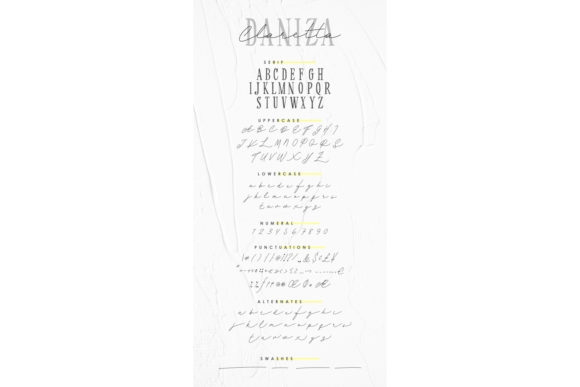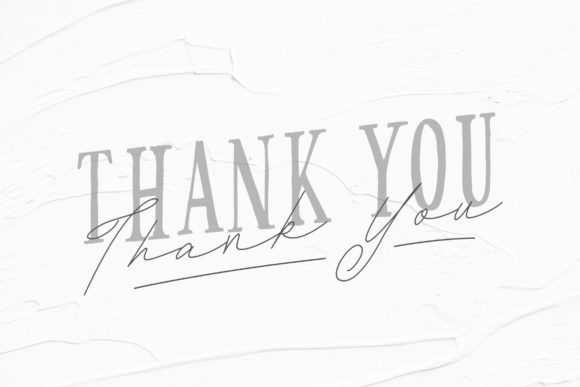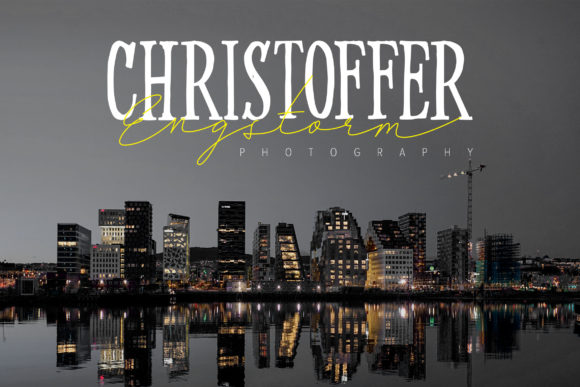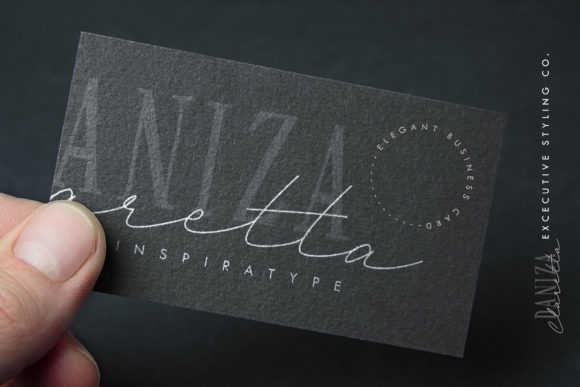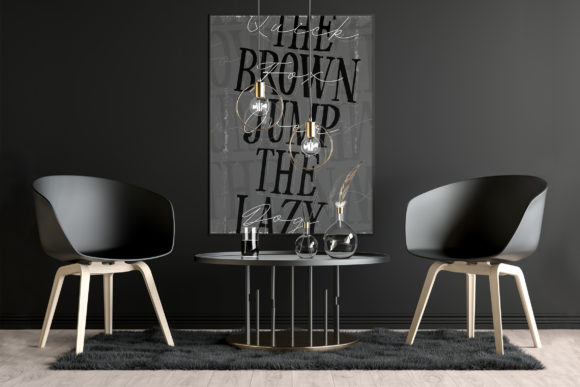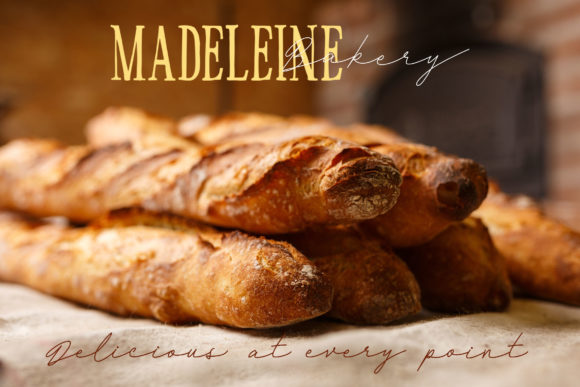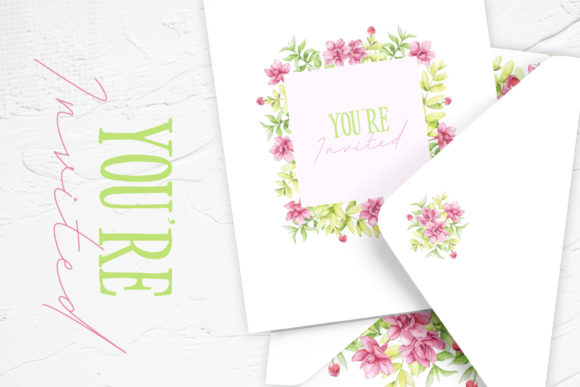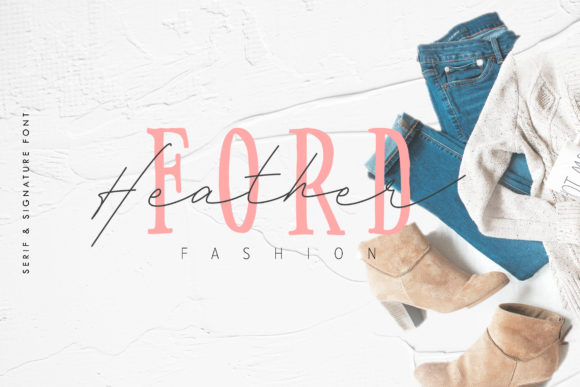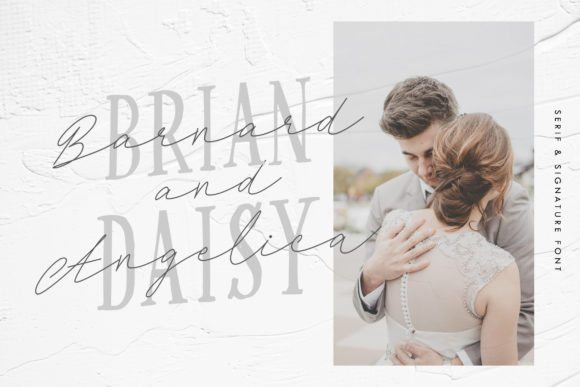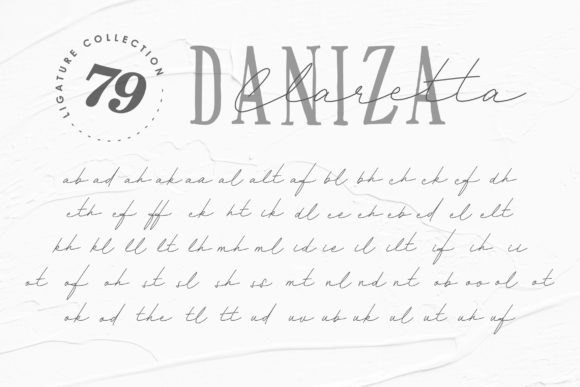
Daniza Claretta Font
About Daniza Claretta Font
Daniza Claretta is a tasteful duo font. It perfectly combines a strong serif with a gorgeous script. This versatility means that this font can be used in a wide variety of applications from greeting cards, to stationery- the only limit is your imagination!